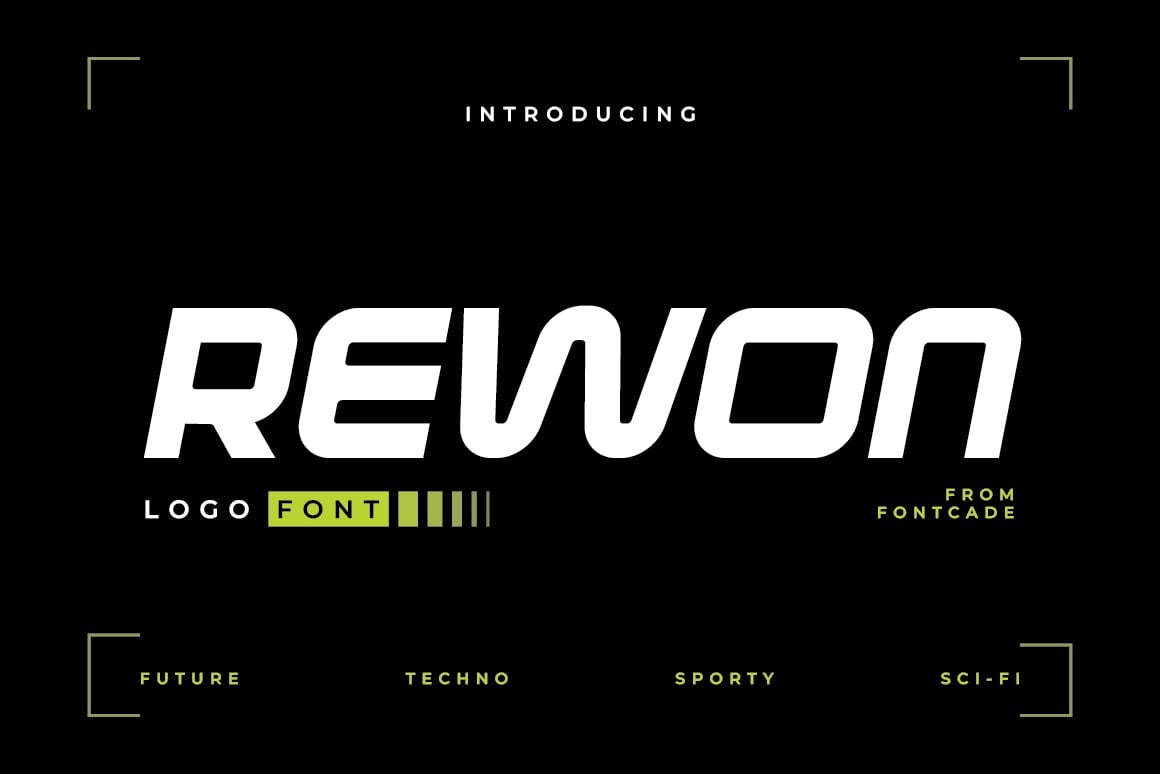
Rewon Font
Rewon Font is a clean and thoughtfully built typeface that works seamlessly for both professional branding and everyday creative uses. Rewon is a bold and modern typeface provided by Fontcade, designed with a strong futuristic and techno aesthetic. Its sharp, angular, and slightly slanted letterforms deliver a dynamic sense of speed, making it perfect for sporty designs, technology projects, and sci-fi themed visuals.